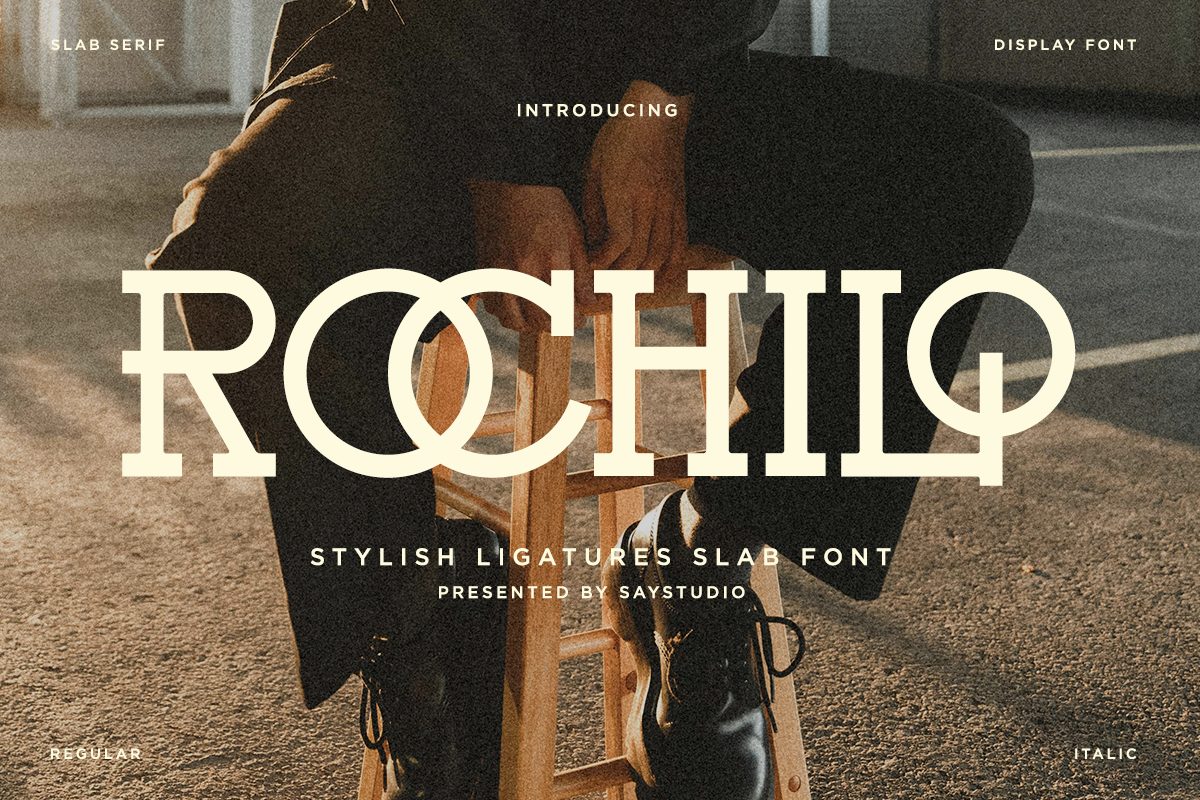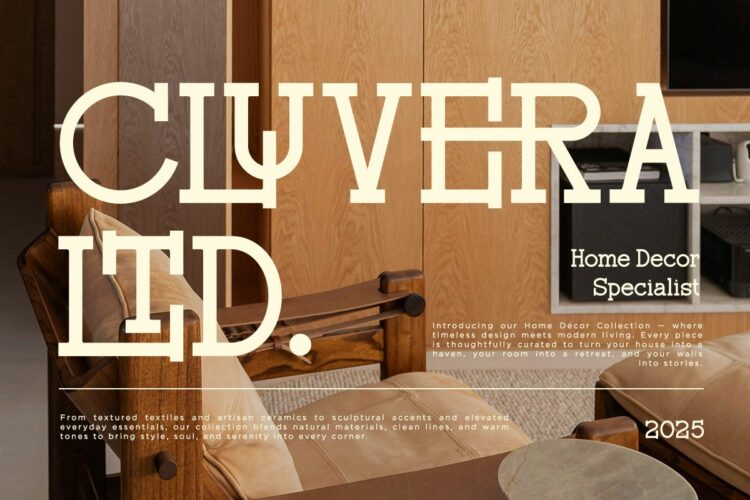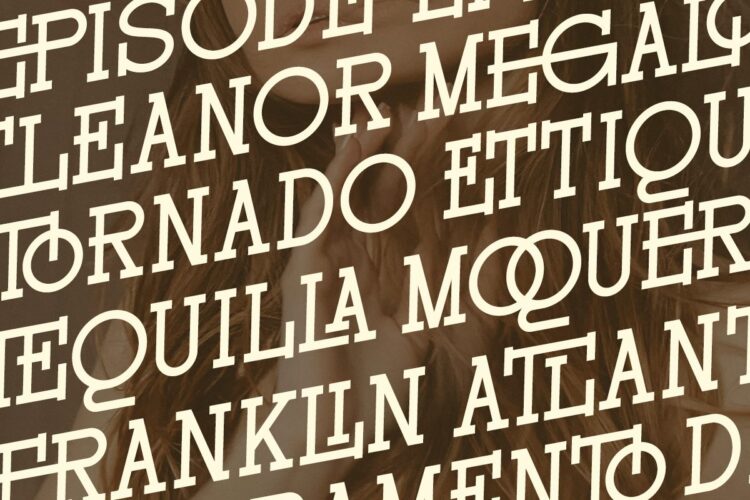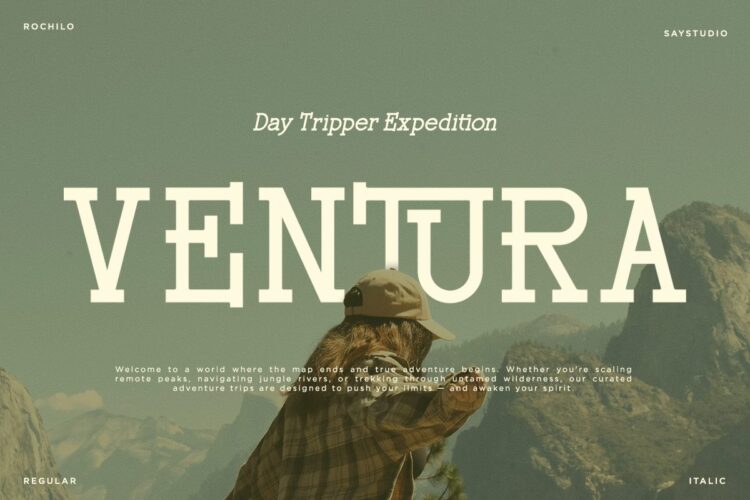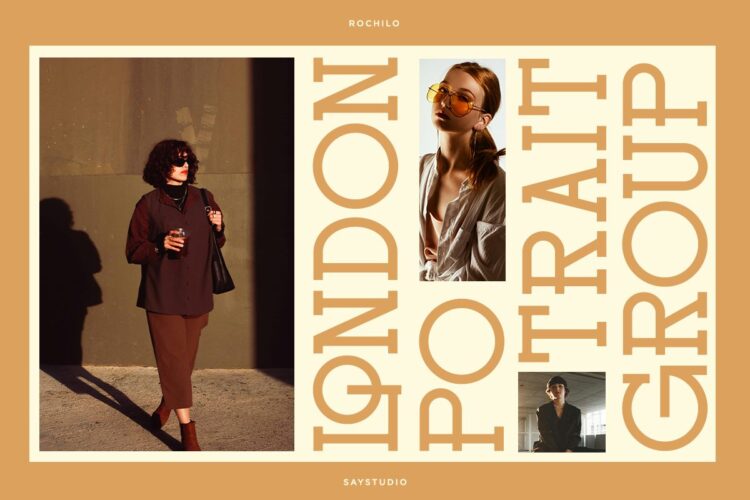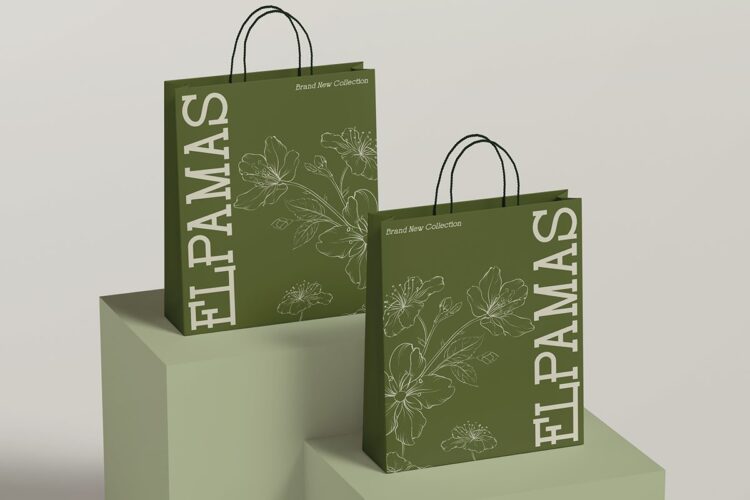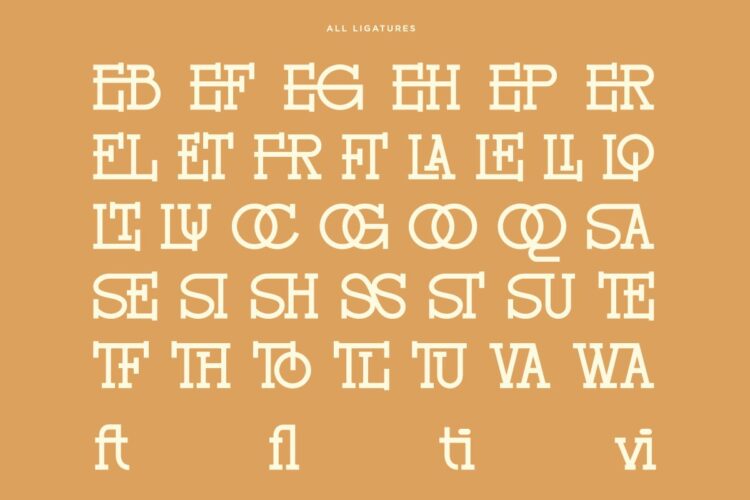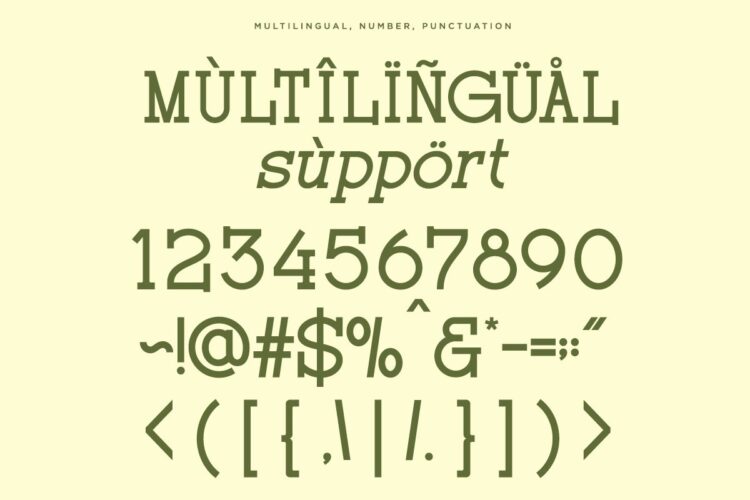
Rochilo – Serif Font
Rochilo is modern ligatures slab serif font inpired by typewriter and combine with stylish ligatures. With its elegant proportions, subtle slab characteristics, and a clean, slightly mechanical edge, Rochilo offers a unique balance of sophistication and personality. This typeface brings character, charm, and just the right amount of attitude. Its elegant curves and subtle strength making it ideal for branding, fashion editorials, packaging, and high-end visual projects.
– Stylish Ligatures